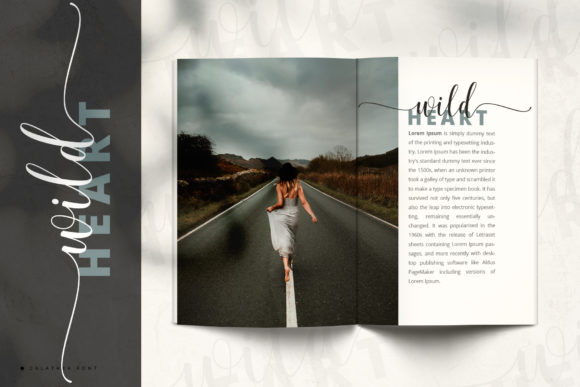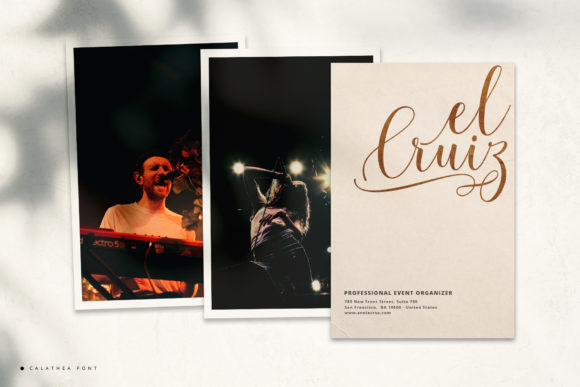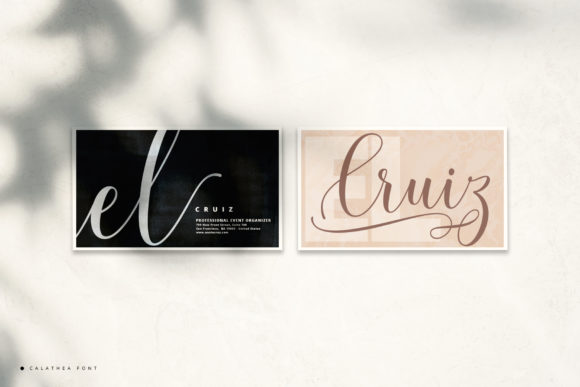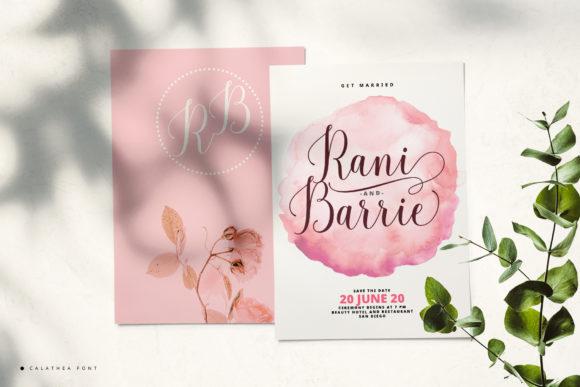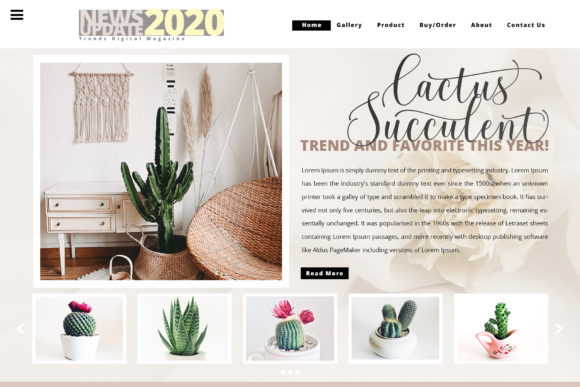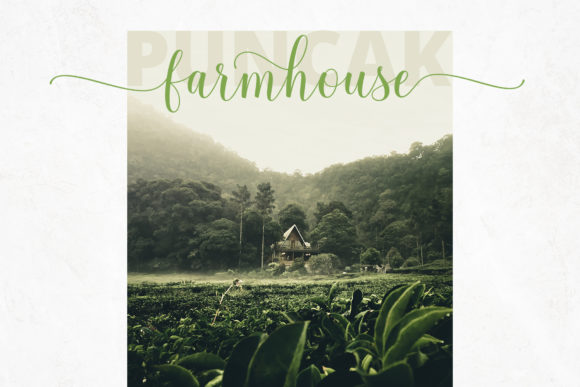
Introducing Calathea Font: Elevate Your Designs with Elegance and Versatility
In the world of typography, few fonts manage to capture the essence of elegance and versatility as beautifully as the Calathea Font. This stunning script font is a masterpiece of design, boasting gorgeous swashes and ligatures that make it incredibly adaptable for a myriad of creative projects. Whether you’re a seasoned designer, a crafty DIY enthusiast, or someone who simply appreciates the beauty of well-crafted typography, Calathea is sure to inspire your next creative endeavor.
The Beauty of Calathea Font
Calathea Font stands out in the realm of script fonts due to its unique blend of classic elegance and modern flair. Its elegant swashes and ligatures are meticulously designed to add a touch of sophistication to any design project. From the flowing curves of its letters to the intricate details of its swashes, Calathea exudes a sense of luxury and refinement that is hard to match.
One of the key features that make Calathea Font so appealing is its incredible versatility. This font is not limited to a specific style or application; rather, it can be used in a wide variety of projects, from book covers and greeting cards to branding and advertising materials. The only limit to what you can create with Calathea is your imagination. This versatility makes it an invaluable addition to any designer’s toolkit, as well as a great asset for crafters and DIY enthusiasts looking to add a professional touch to their creations.
Applications of Calathea Font
The possibilities for using Calathea Font are endless. Here are a few ideas to get you started:
- Book Covers: Add a touch of elegance to your novel or non-fiction book cover with Calathea. Its sophisticated look is sure to catch the eye of potential readers.
- Greeting Cards: Whether you’re creating handmade cards for special occasions or designing professionally, Calathea can add a level of sophistication and charm that’s hard to achieve with standard fonts.
- Branding and Logo Design: For businesses looking to establish a luxurious brand image, Calathea can be a great choice for logos, letterheads, and marketing materials.
- Stationery and Invitations: Elevate your stationery or event invitations with Calathea’s beautiful script, making any occasion feel more special.
Why Designers and Crafters Love Calathea
Designers and crafters alike are drawn to Calathea Font for several reasons:
- Ease of Use: Despite its intricate design, Calathea is easy to use, even for those who are new to working with script fonts.
- Customization: With its swashes and ligatures, Calathea offers plenty of opportunities for customization, allowing you to make your project truly unique.
- Timeless Appeal: Unlike trends that come and go, Calathea’s classic elegance ensures it will remain stylish for years to come.
Calathea Font is more than just a script font; it’s a tool for creativity and self-expression. Its elegant design, versatility, and wide range of applications make it an excellent choice for designers and crafters looking to add a touch of sophistication to their projects. Whether you’re working on a professional design or a personal craft project, Calathea invites you to explore new possibilities and push the boundaries of your creativity. With Calathea, the only limit is your imagination.